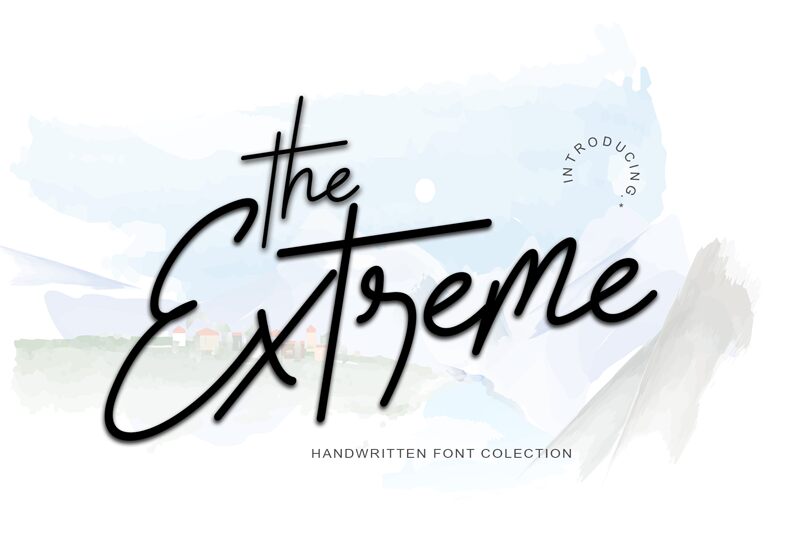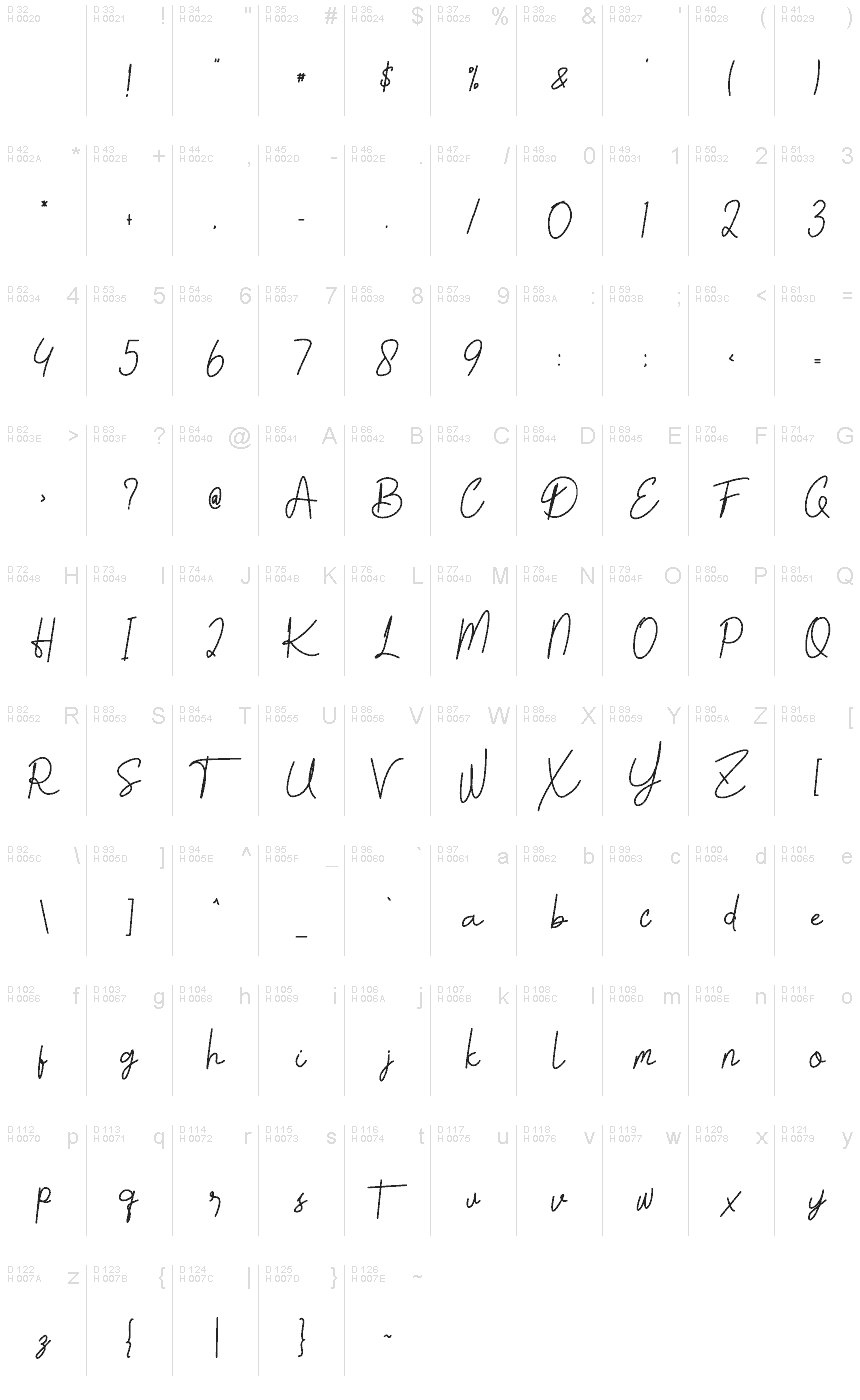
The Extreme
The Extreme font by Plafont Store represents a handwritten style that exudes casual elegance. Its light weight and modern aesthetic lend it expressive character in a personal touch atypical of machine-produced typefaces. The resulting typography has humanistic charm while maintaining artistic integrity through gentle brushstrokes.
A free handwritten font ideal for wedding invitations, logo designs, place cards, social media posts, inspirational quotes, headers, greeting cards, stationery, branding projects, posters and signage.
This font retains a classy calligraphic influence while feeling contemporary and fresh. Its versatility will inspire a wide range of creative ideas, from letterheads and titles to stationery.